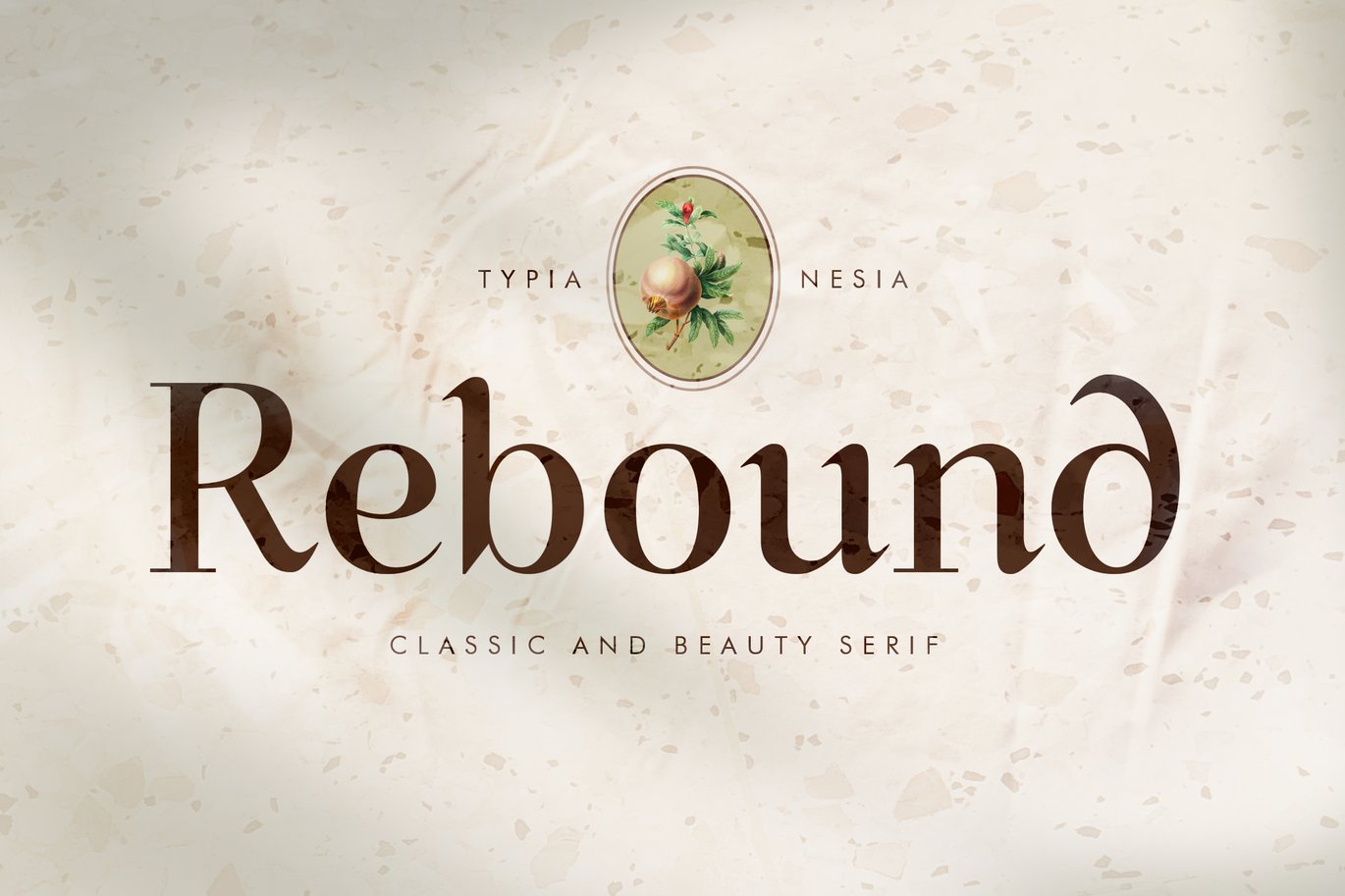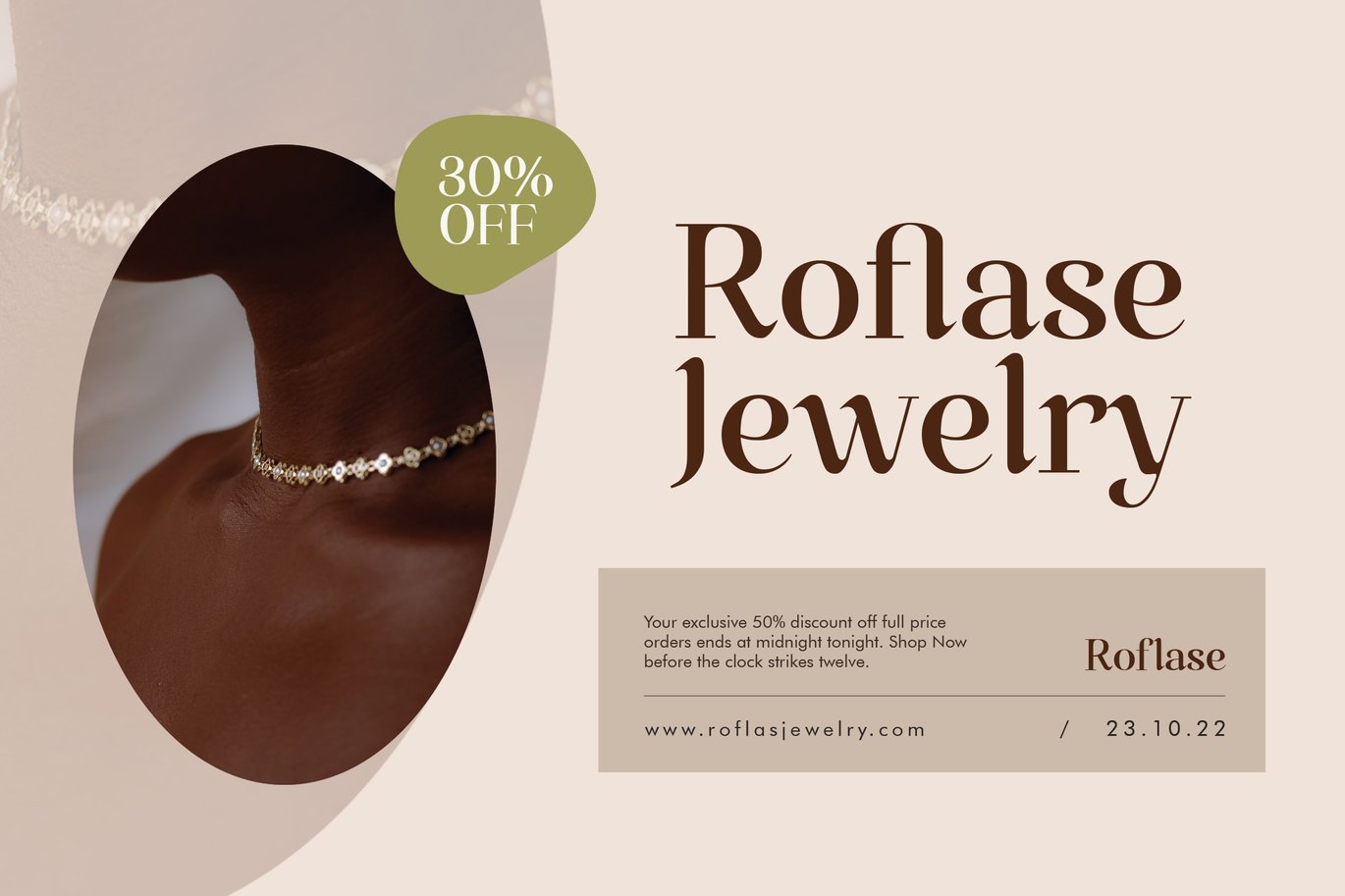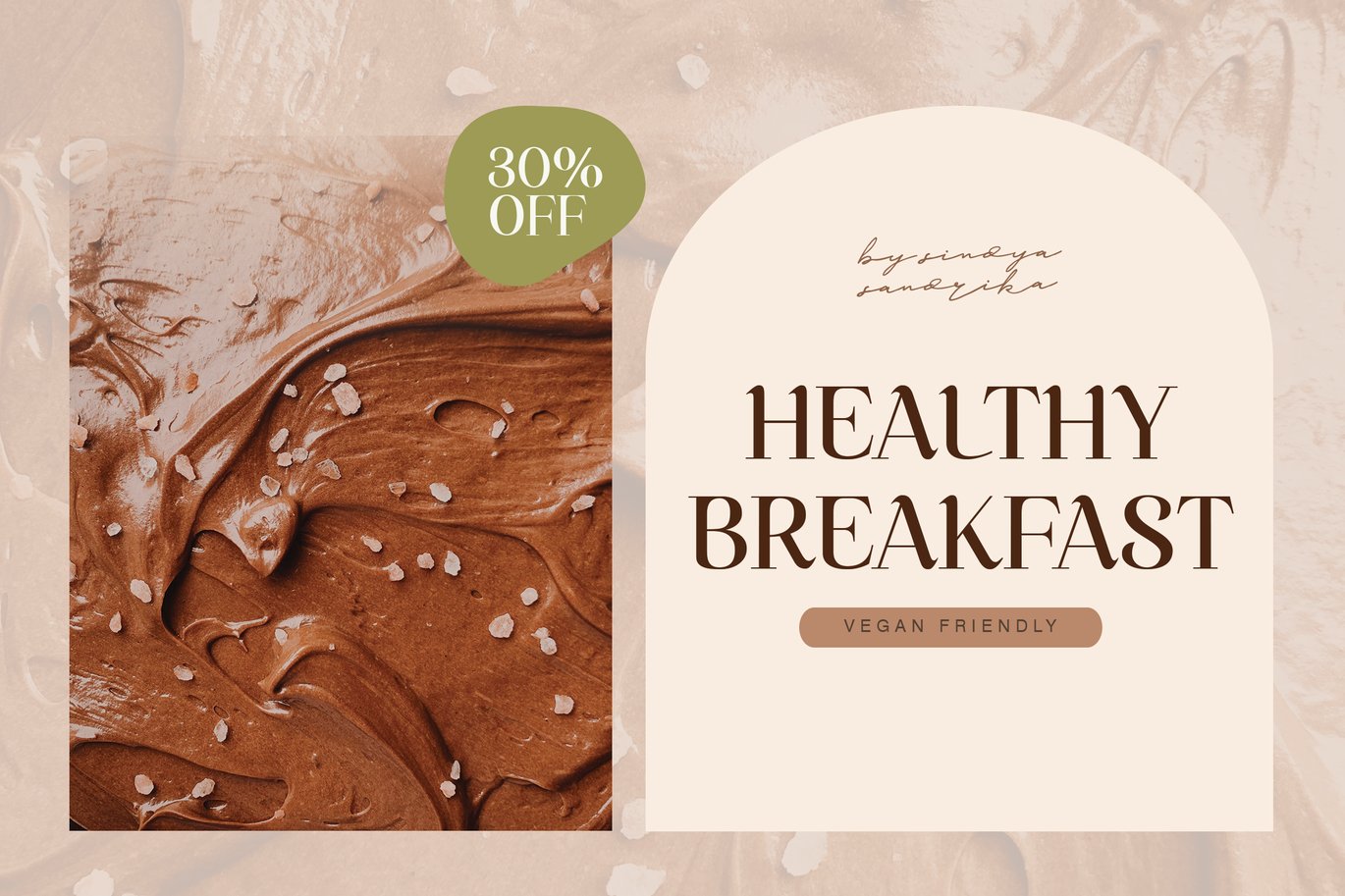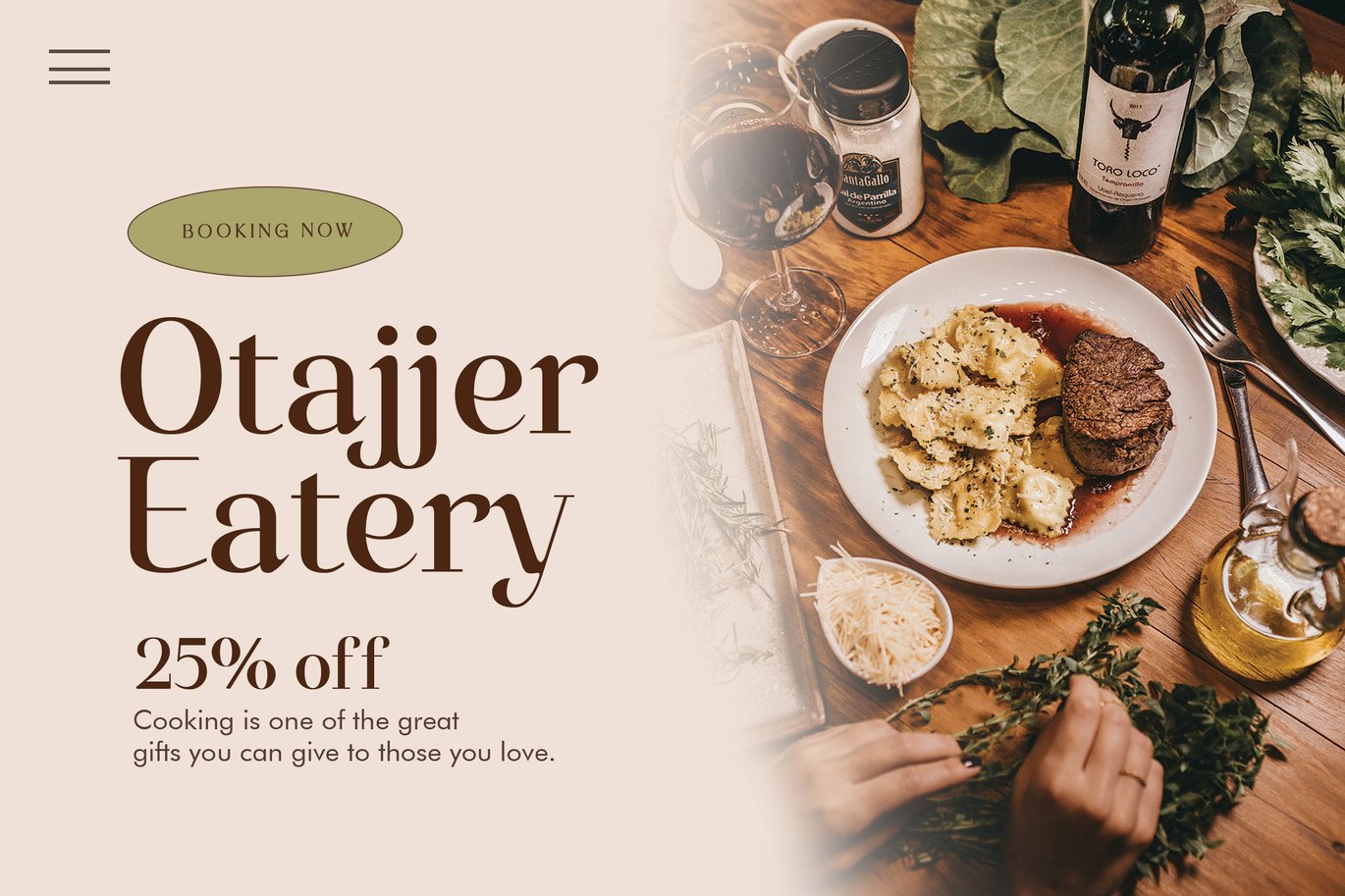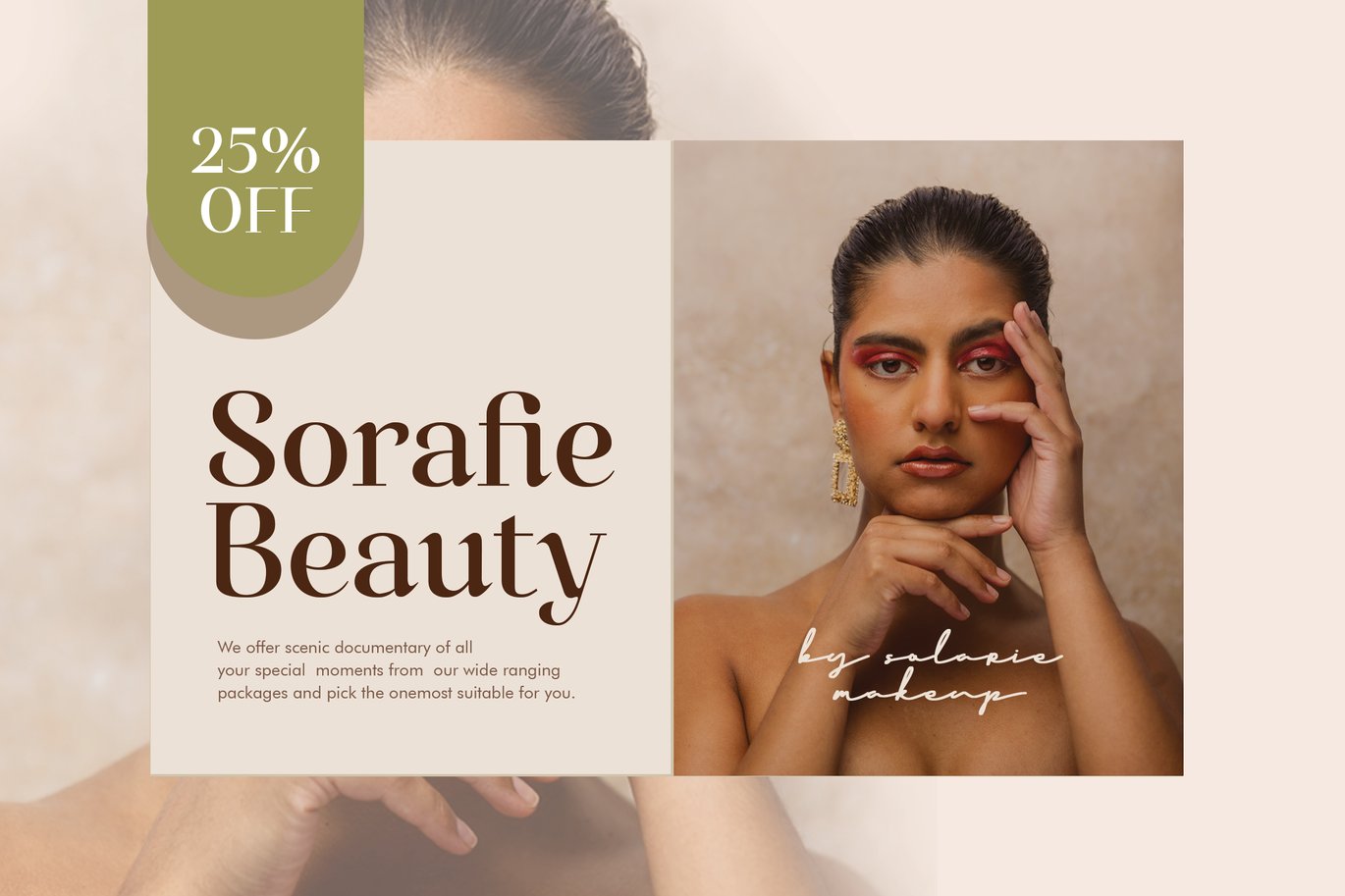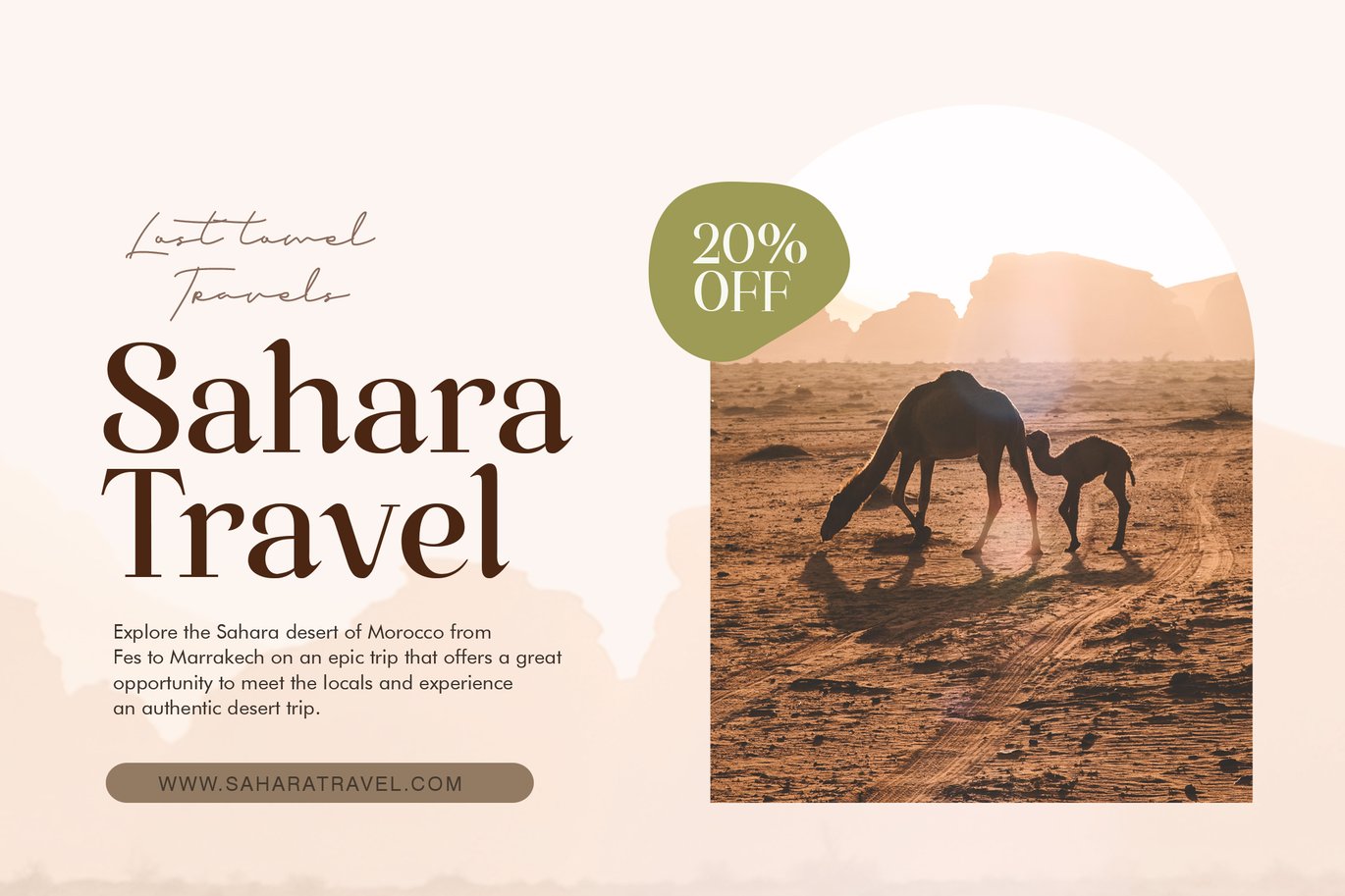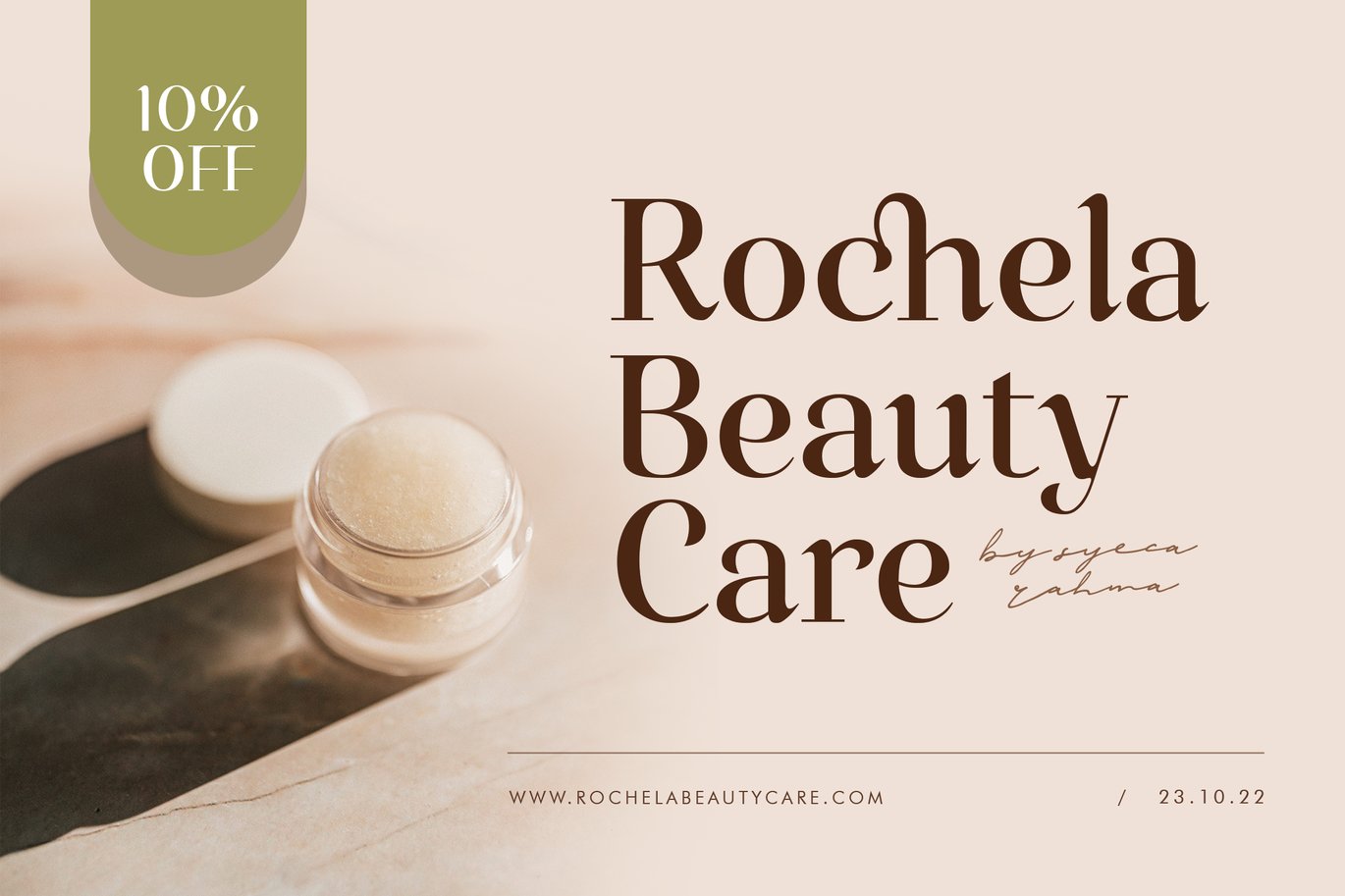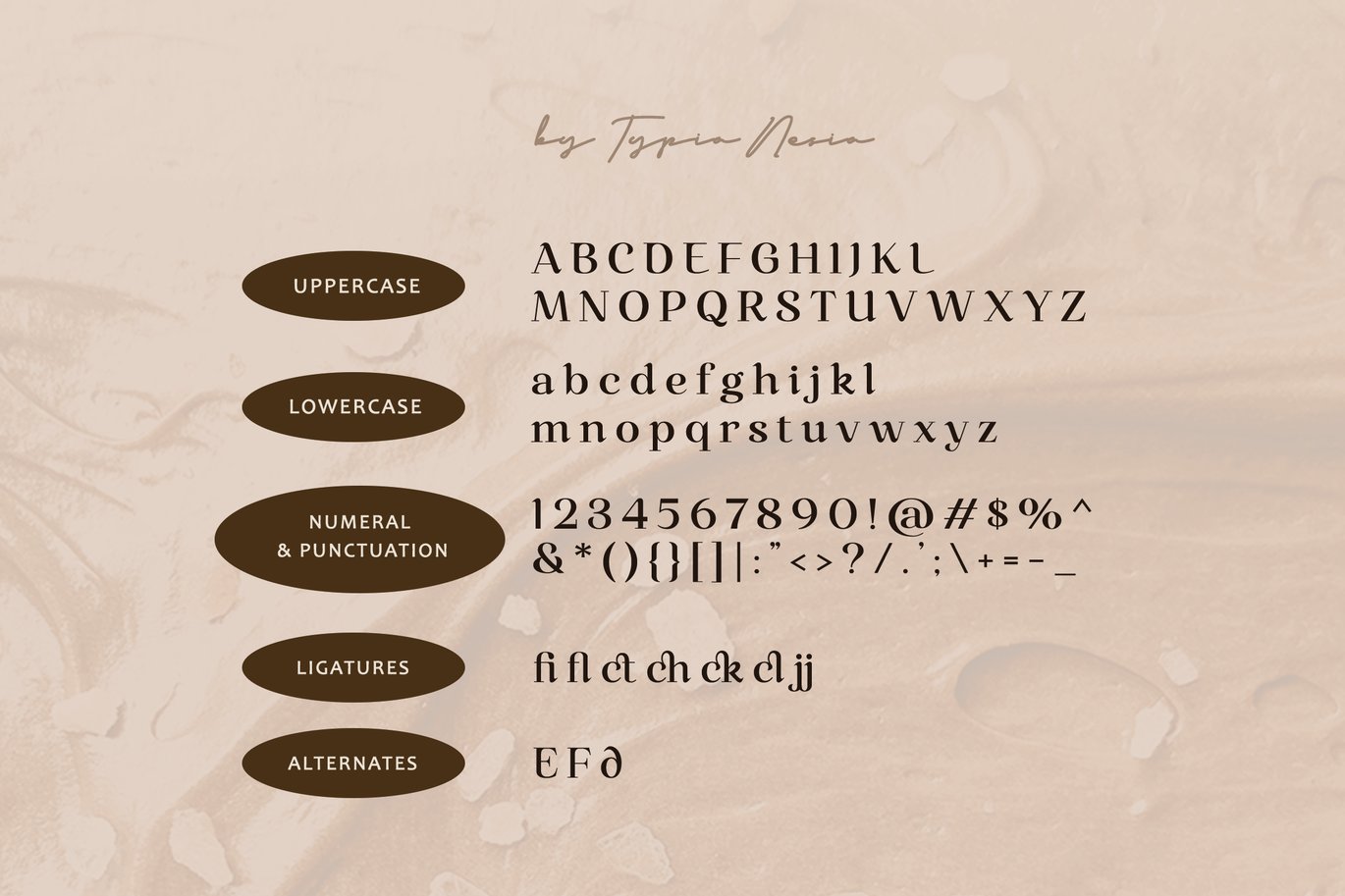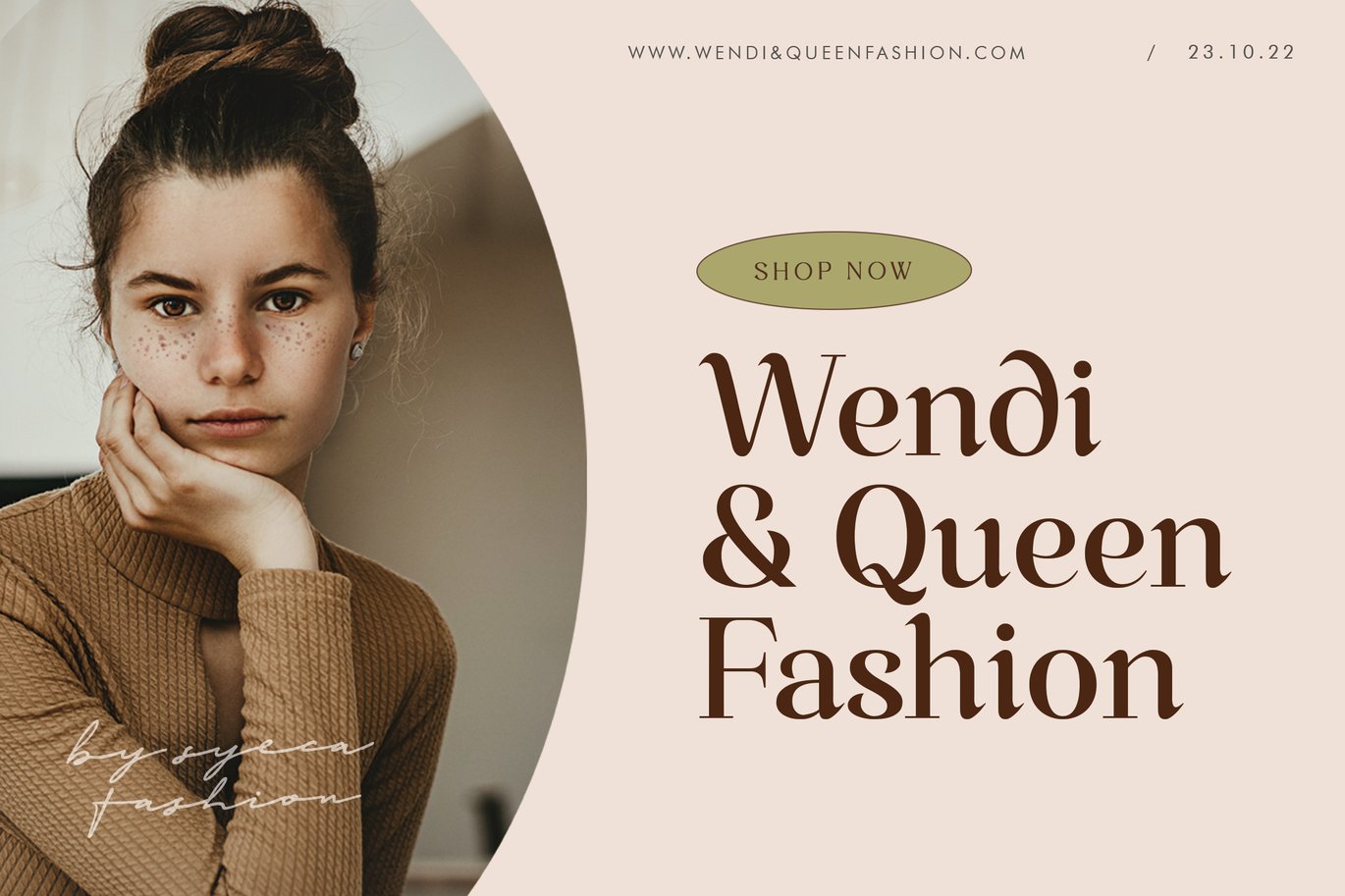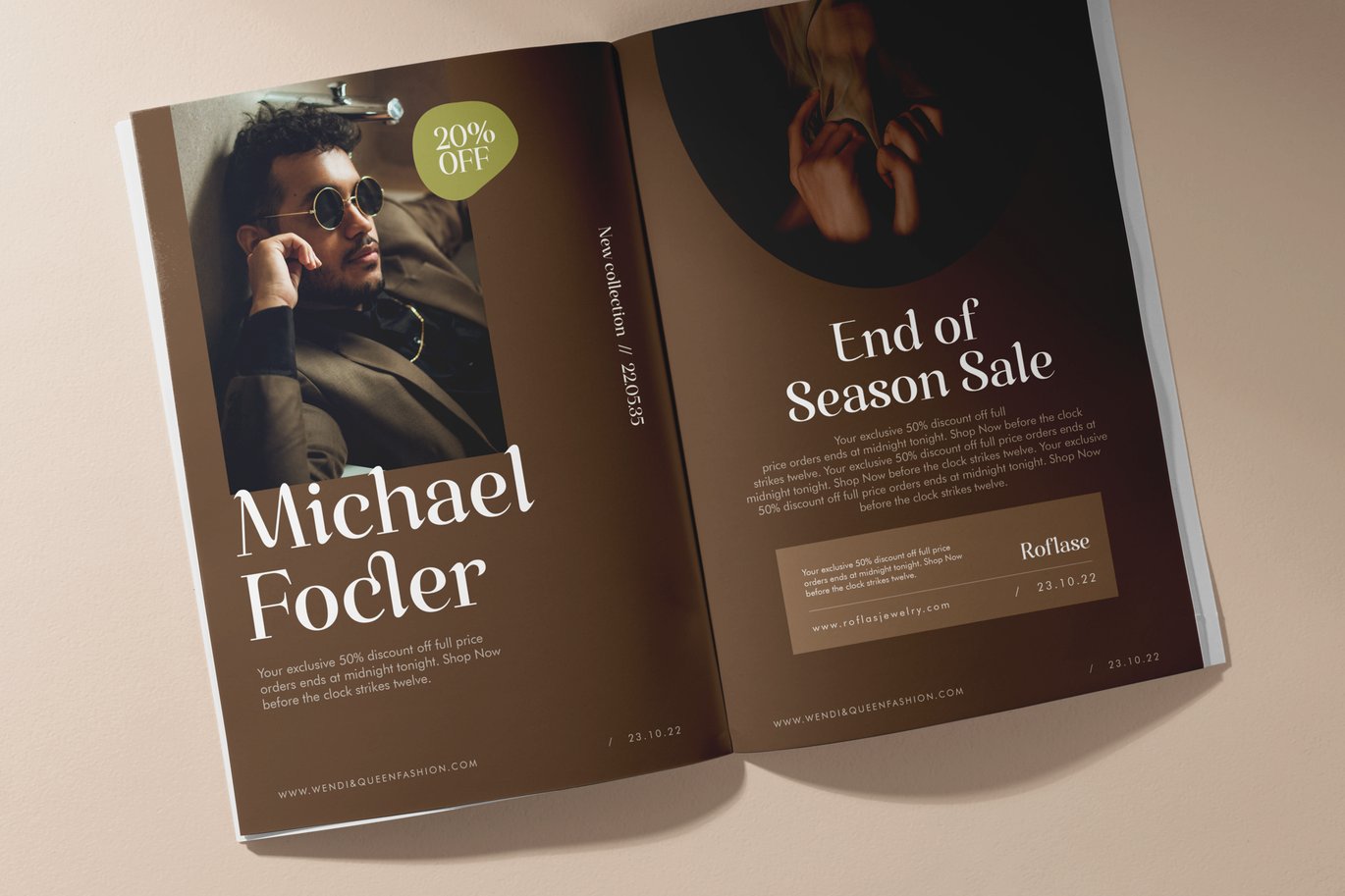
Rebound – Classic Beauty Serif – Vintage Font
Rebound – Classic Elegant Display Serif – Vintage Fantasy Font – Royal and Luxury Font
Rebound Serif is perfect for your up coming projects. Such as luxury logo and branding, classy editorial design, woman magazine, cosmetic brand, fashion promotional, art gallery branding, museum, historical of architectural, boutique branding, stationery design, blog design, modern advertising design, card invitation, art quote, home decor, fantasy movie / game, novel / book / cover title, special events and any more.